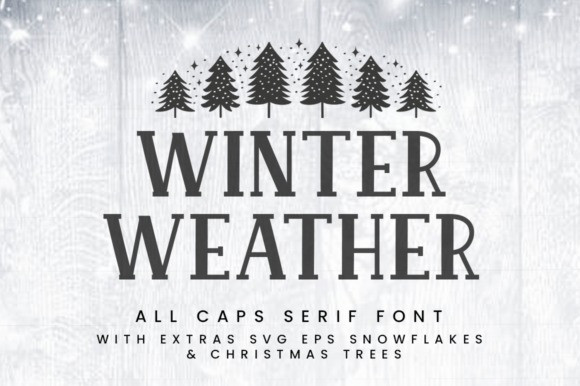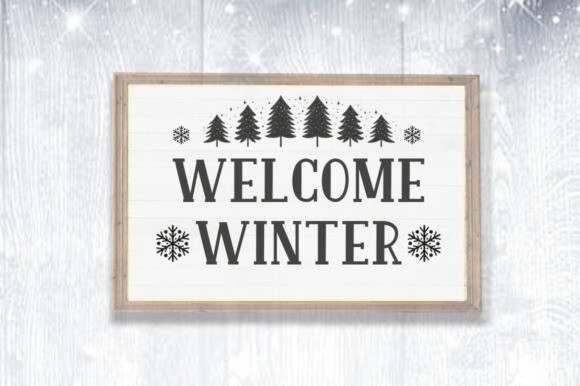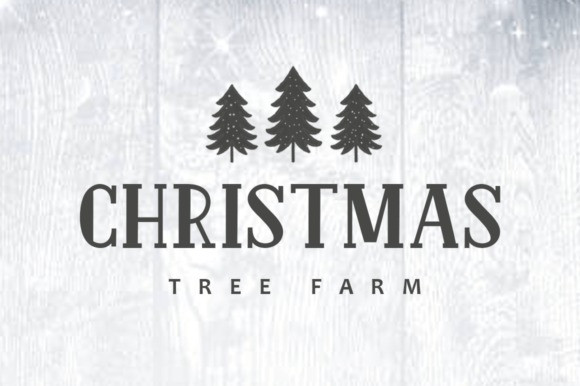
Winter Weather Font
Winter Weather all solid font caps & outline perfect for signs, cricuts, logos, crafts, and many others, plus the addition of snowflakes & christmas trees makes the design look more perfect.